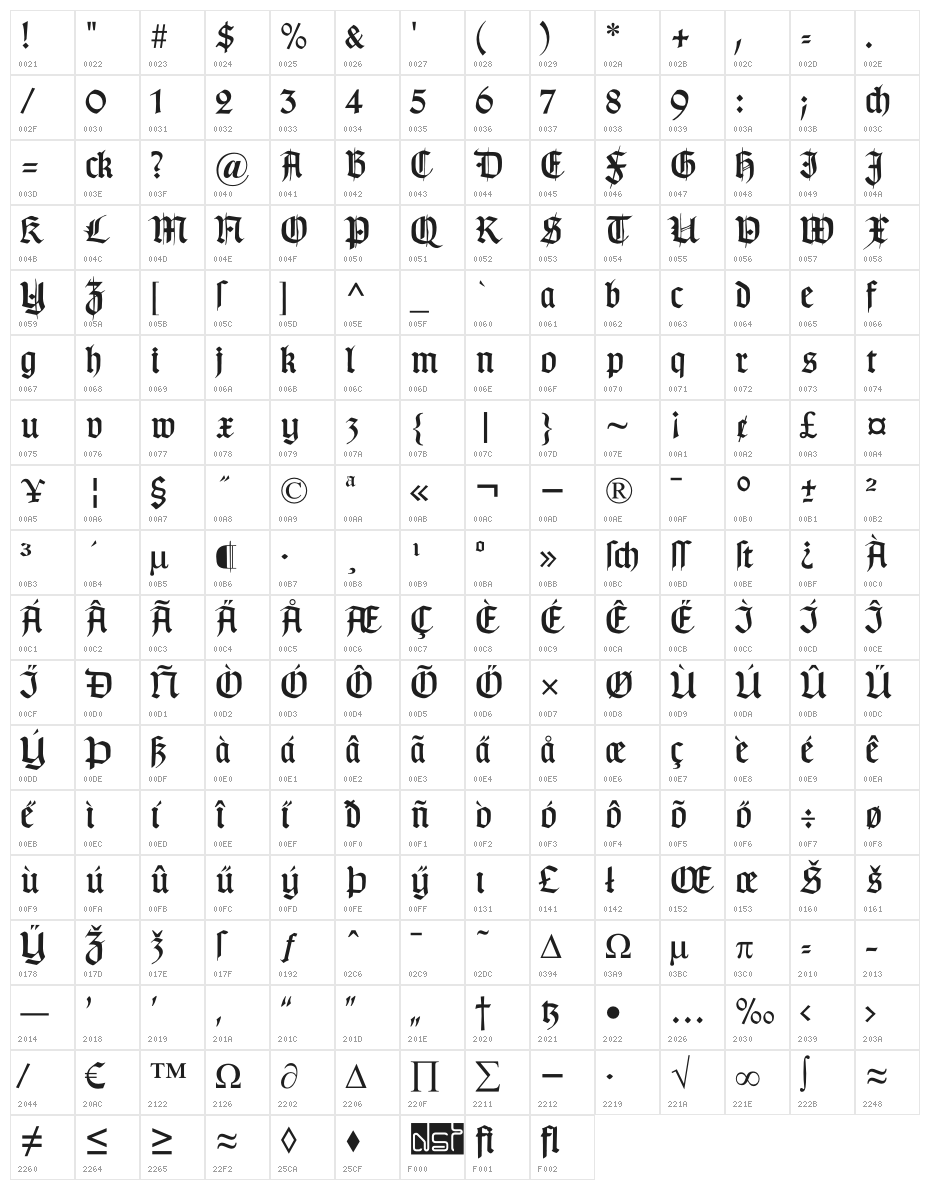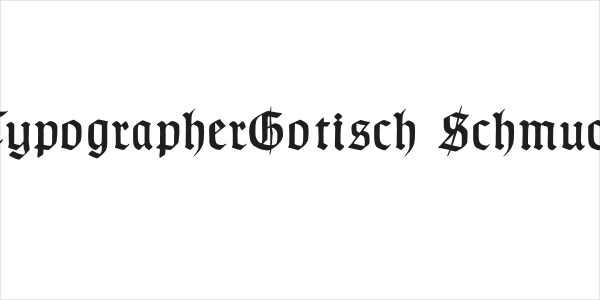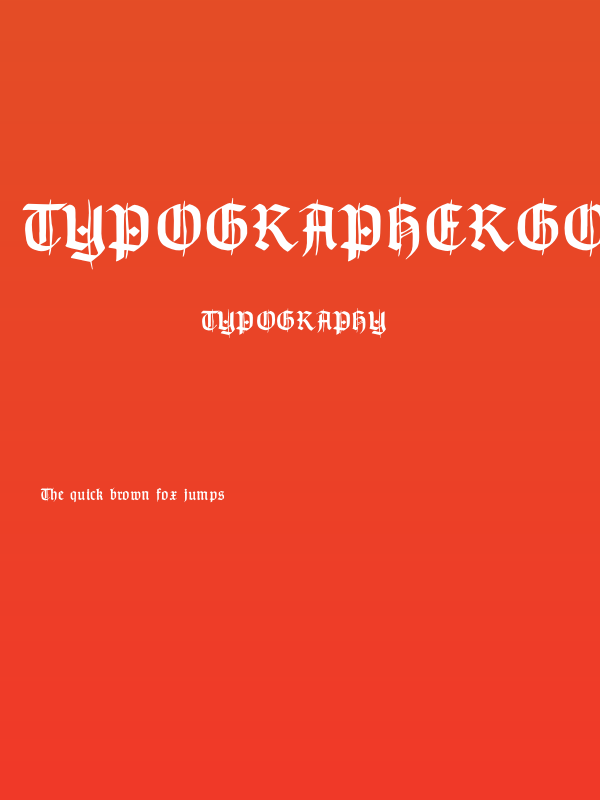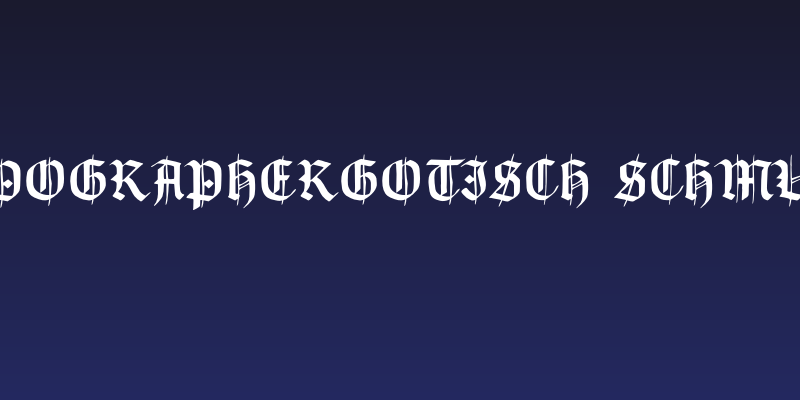
TypographerGotisch Schmuck Font
TypographerGotisch Schmuck Description
This font features a traditional blackletter style with sharp, angular lines and intricate detailing. The uppercase letters exhibit a strong, commanding presence with their bold strokes and pointed serifs, reminiscent of medieval script. The lowercase letters maintain the same gothic aesthetic, offering a cohesive look throughout the typeface. The numerals are equally bold, with a distinct old-world charm that complements the overall design. Special characters are crafted with the same attention to detail, ensuring they blend seamlessly with the rest of the font. This typeface is ideal for projects that require a historical or dramatic flair, such as event posters, book covers, or branding for luxury products.